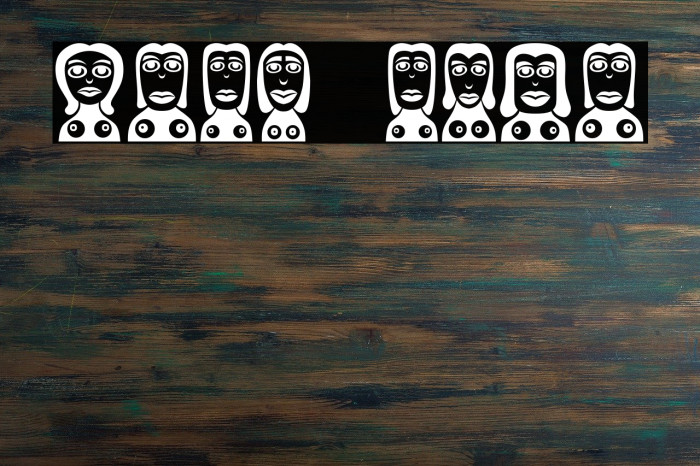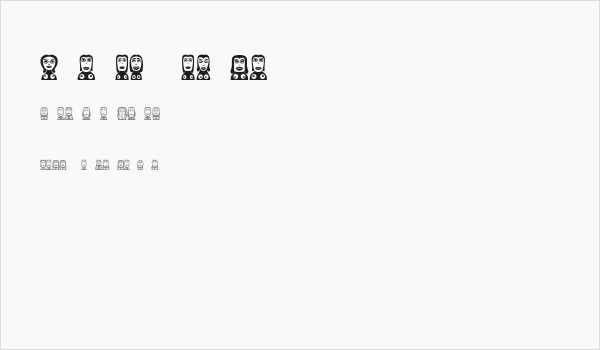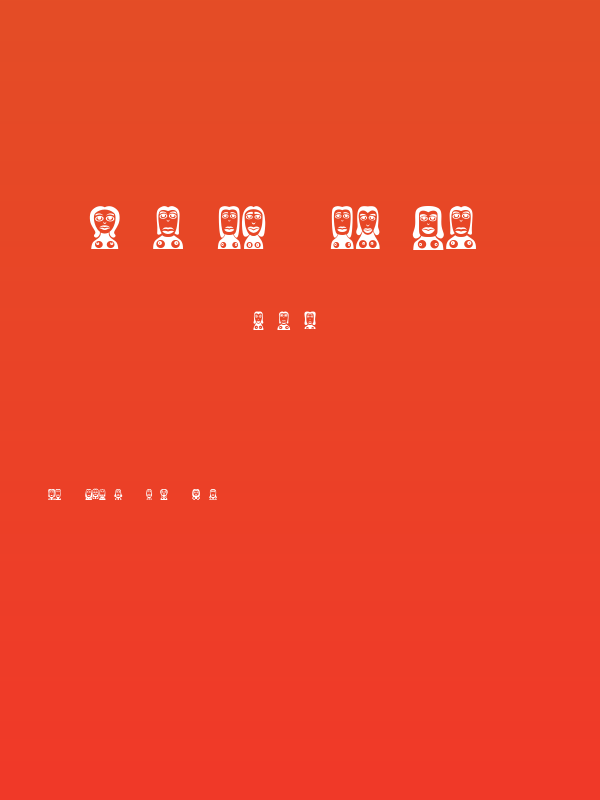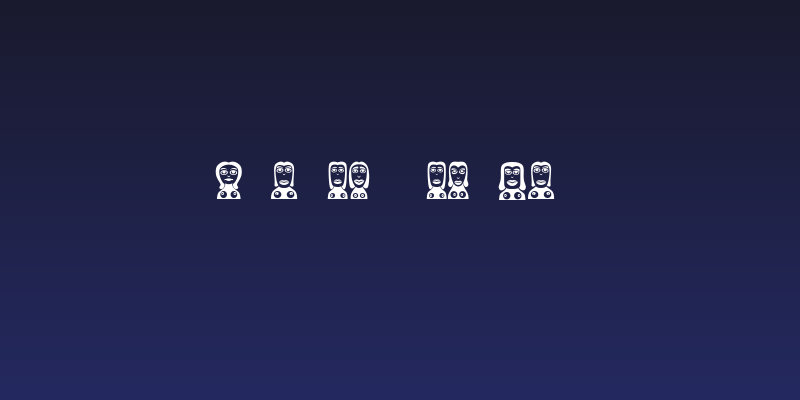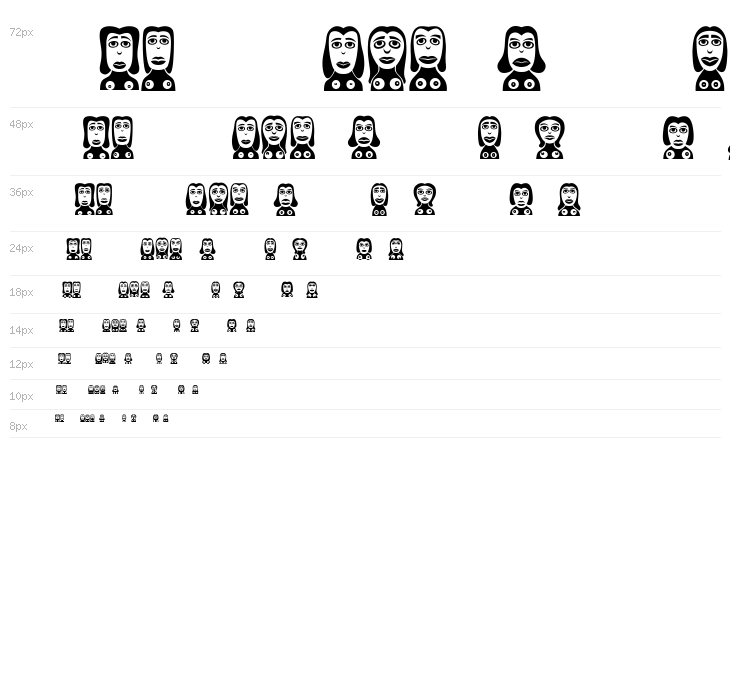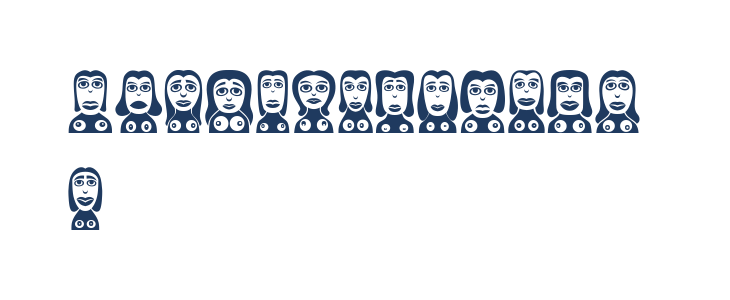
Frauen Regular Font
Frauen Regular Description
This font is a highly creative and decorative typeface where each character is represented by a stylized face. The design is bold and unique, with each letter and number featuring distinct facial features that give it a playful and artistic appearance. The characters are evenly spaced, maintaining a consistent visual rhythm across the typeface. This font is not suitable for body text due to its intricate design but serves as an excellent choice for artistic projects or thematic displays. The overall style is whimsical and avant-garde, making it ideal for creative and unconventional uses.
Overall StyleWhimsical, Avant-garde
Use CaseLogos, Posters, Artistic Displays
Proposed ProjectsIdeal for art projects, posters, creative branding, and thematic event invitations.